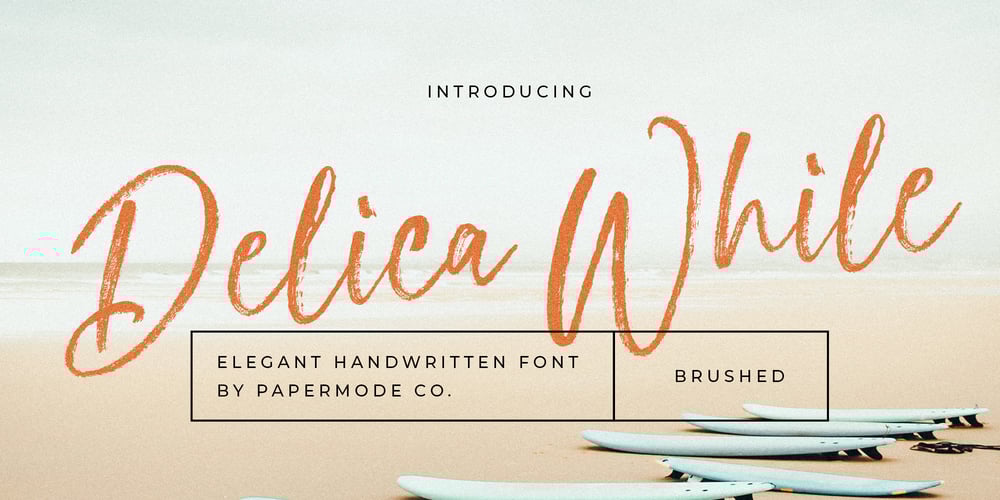
Delica While Font Family was designed by Mira Kartika Sari and published by Papermode Co. Delica While contains 1 styles and family package options. Delica While is an organic handwritten font inspired by natural brush typography. Written with a relaxed movement using a slightly dry brush pen. This will give you a fresh and elegant design. Delica While comes with a set of upper and lower case letters, numbers.Included Multilingual SupportIf you do not have programs that support OpenType features like Adobe Illustrator and CorelDraw X Versions, you can access all alternative flying machines using Font Book (Mac) or Character Map (Windows):